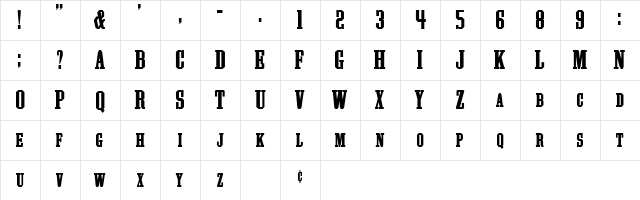
Athletic Supporter brings high-energy athletic personality to the page - its confident, muscular forms are built for impact.
Pro Tip: Use Athletic Supporter in all-caps headlines where its athletic energy can fully express itself. Pair with a solid, simple sans for supporting text.